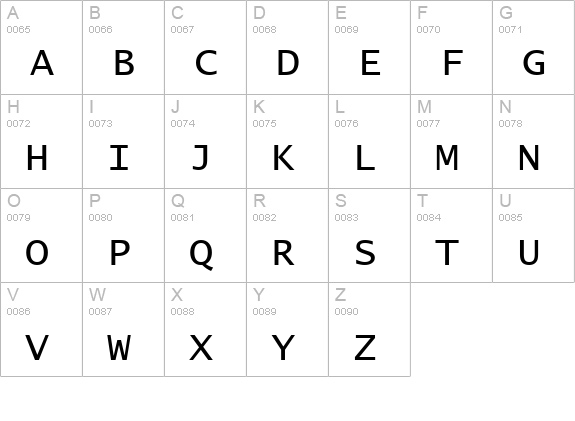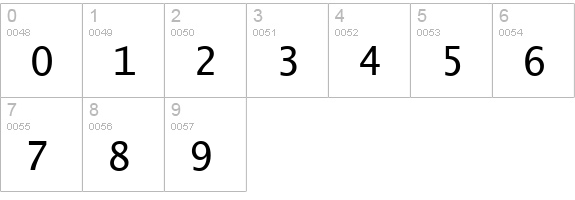
Lucida Console Font Details
Lucida Console is a classic monospaced font that is perfect for coding, programming, and any other text-based projects. Its clean and legible design makes it a popular choice among developers and designers alike. Lucida Console offers a professional and modern look while maintaining a high level of readability. The best part is that Lucida Console is completely free to download at FontsMarket.com. You can easily access this versatile font and enhance your projects with its sleek and timeless style. Whether you're working on a website, creating a presentation, or designing a logo, Lucida Console is a reliable choice that won't disappoint. Download it today and add a touch of sophistication to your work!